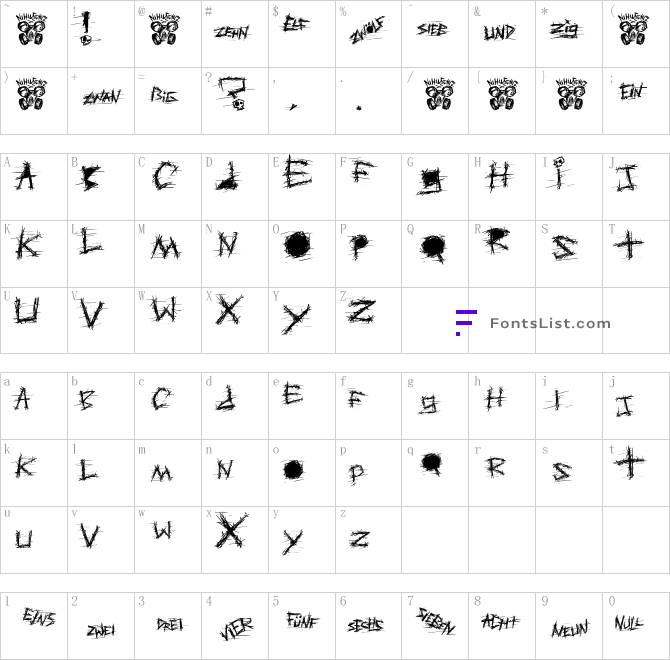
- Font Name:Aggressive Angry Baby Killer
Aggressive-Angry-Baby-Killer.ttf is a very beautiful artistic font, Aggressive-Angry-Baby-Killer.ttf is widely used in the design and printing of various books and pictures,Aggressive-Angry-Baby-Killer.ttf has a strong visual impact,Aggressive-Angry-Baby-Killer.ttf is a commonly used font in newspapers, magazines and books, and is used in posters, e-commerce Poster design, store design, logo design, font design and other fields.Aggressive-Angry-Baby-Killer.